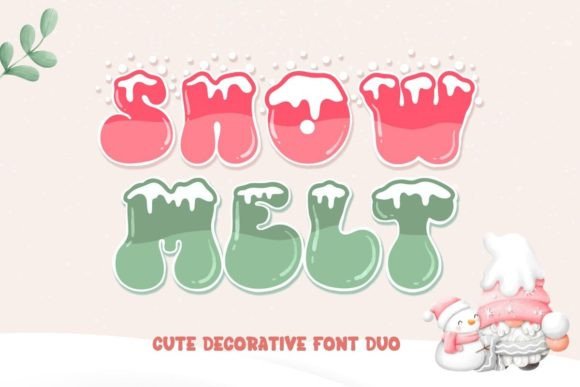
Get ready to be mesmerized by Snowmelt Font, a captivating decorative font that breathes life into your creative projects!
Snowmelt Font is a visual masterpiece that weaves the frosty elegance of snowmelt with the enchanting allure of unique letterforms. Its delicately crafted characters, adorned with snowmelt accents, exude a captivating charm that is sure to leave a lasting impression.
Unleash your creativity and let Snowmelt Font transport you to a world of endless possibilities. Picture the magic of Christmas cards that shimmer with the beauty of falling snow, wedding invitations that evoke a sense of wintry romance, or personalized items like bags and drinking glasses that exude a touch of sophistication. Its versatility extends to stationery design, where Snowmelt Font adds a touch of individuality to your written words.
Immerse yourself in the world of Snowmelt Font and discover a world where imagination reigns supreme. Let its elegant curves and intricate details elevate your designs to new heights.